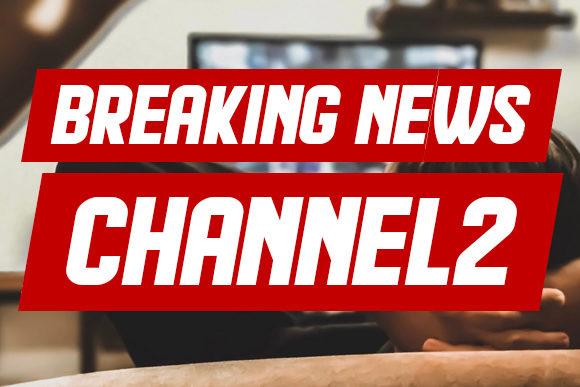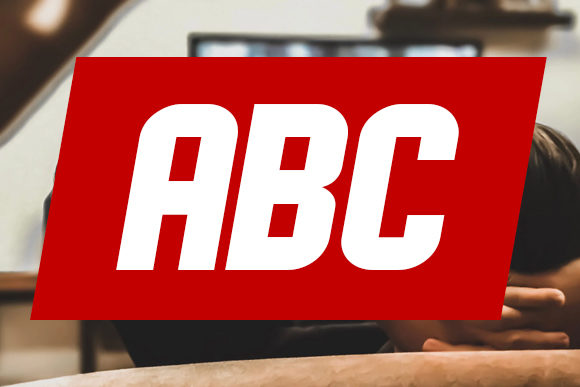
Introduction to Live News Font
Have you ever been stuck in a design rut, scrolling through fonts for hours, searching for that perfect fit for your next creative project? You know, that one font that elevates your design from good to great, and makes your message stand out in a crowded space. For designers, finding that perfect font can be a game-changer, and it’s exactly what the Live News Font offers.
With its unique display style and versatility, Live News Font is a valuable addition to any designer’s toolkit. Whether you’re working on a web design, print project, or even a moving image, this font is sure to deliver. Its high-quality design and transparent background make it a great choice for designers who want to add a touch of sophistication to their work.
Key Features of Live News Font
- High-quality design resource ideal for creative projects, news websites, and live broadcasts.
- Features a transparent background, making it easy to overlay on any image or video.
- Designed with a modern and sleek aesthetic, perfect for live news and current events.
Honest Review: Live News Font
As a designer, I’m always on the lookout for high-quality design resources to elevate my creative projects. Recently, I came across the Live News Font, and I’m excited to share my honest review.
What works well: ✨ The Live News Font has a sleek and modern design that’s perfect for news-themed projects. The font is highly customizable, and the transparent background makes it easy to integrate with any background image or color. I also appreciate that it’s available for free download, which is a huge plus for designers on a budget.
- High-quality design that’s perfect for news-themed projects
Limitations: ⚠️ While the Live News Font is a great addition to any design arsenal, I do wish it came in more styles or variations. Additionally, the font may not be suitable for all types of creative projects, such as logos or branding materials.
Overall impression: I’m impressed with the Live News Font, and I think it’s a valuable resource for designers working on news-themed projects. While it may have some limitations, its high-quality design and free download make it a great addition to any design library.
Live News Font
The Live News Font is a high-quality design resource perfect for creative projects that require a modern and dynamic look. This free download features a transparent background, making it easy to integrate into various design applications.
The Live News Font is perfect for a variety of creative projects, including:
- News and media websites
- Blog posts and articles
- Social